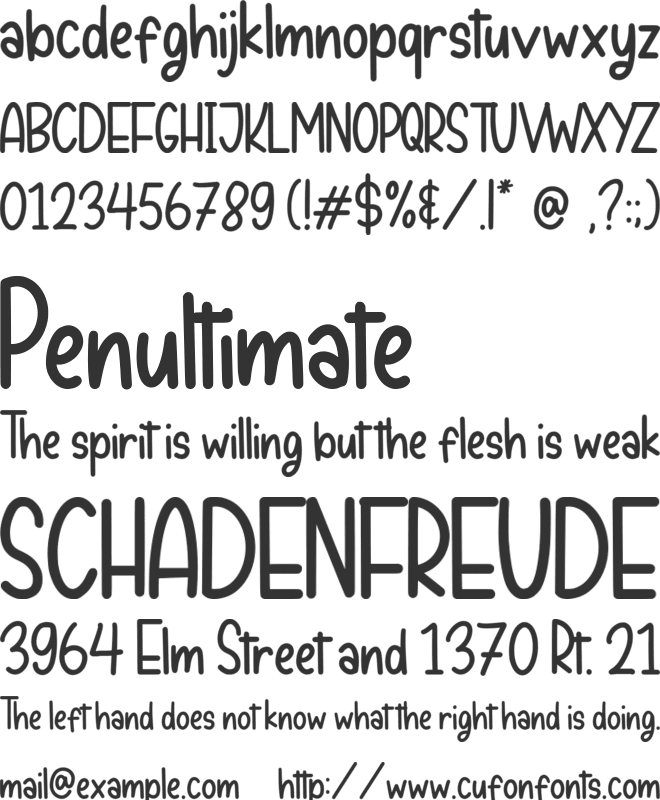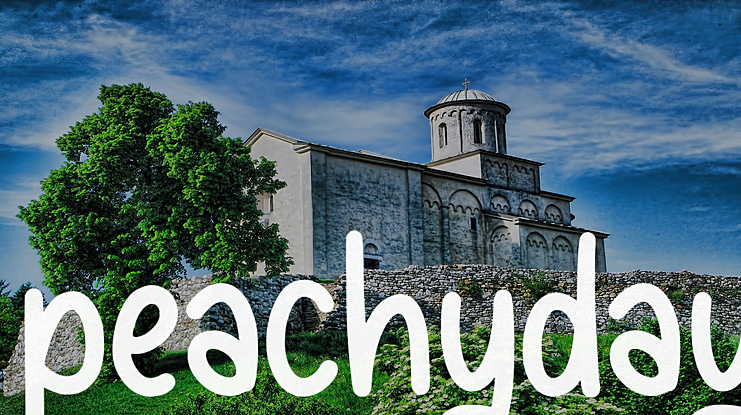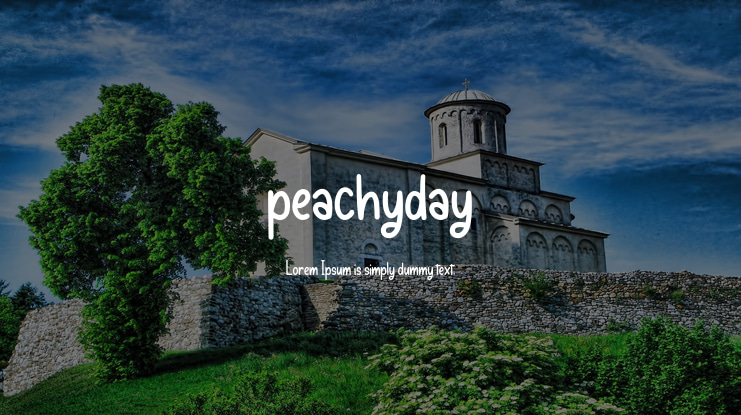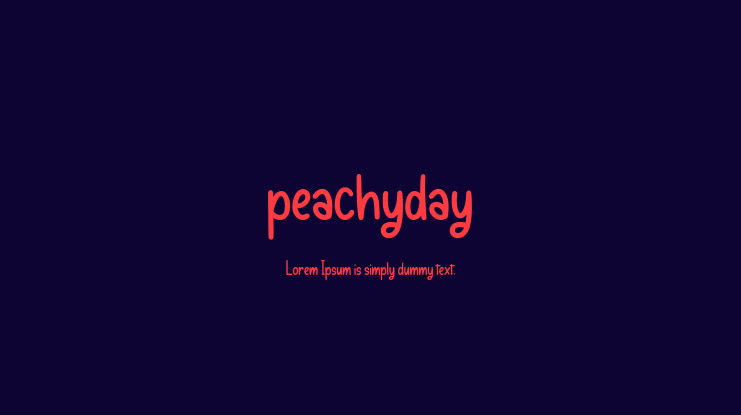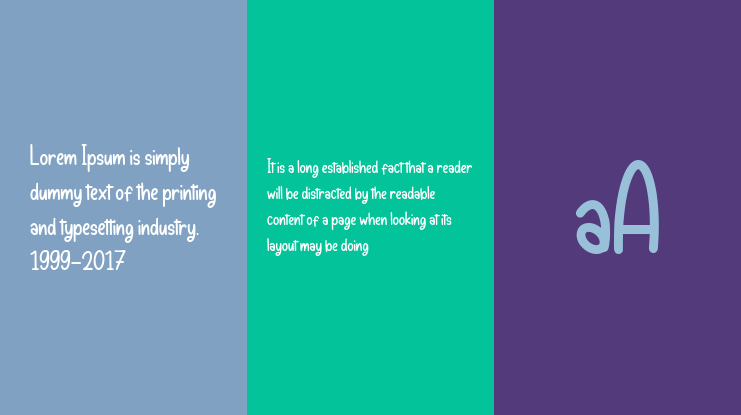
peachyday Font
Proudly Present, Peachyday Font.
Peachyday is a fun & quirky handwritten font.
Peachyday is perfect for product packaging, branding project, megazine, social media, wedding, or just used to express words above the background.